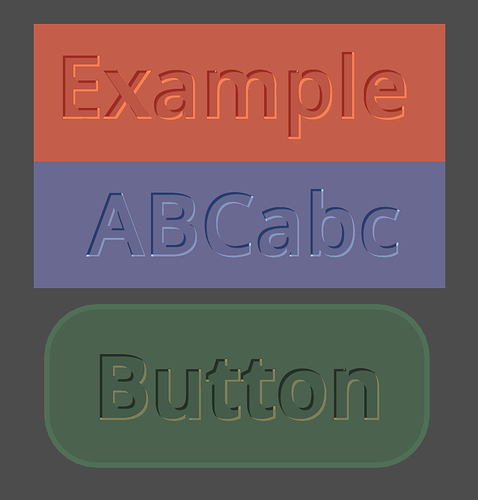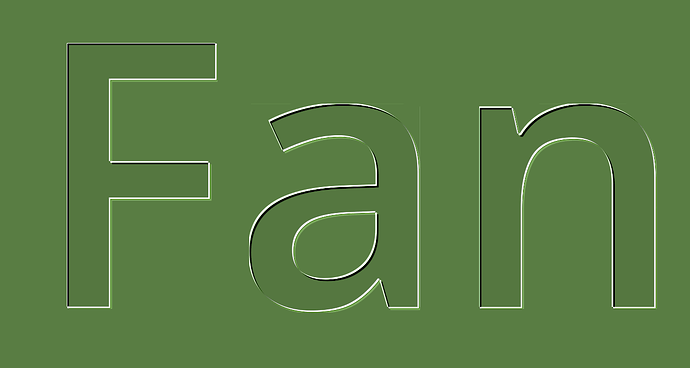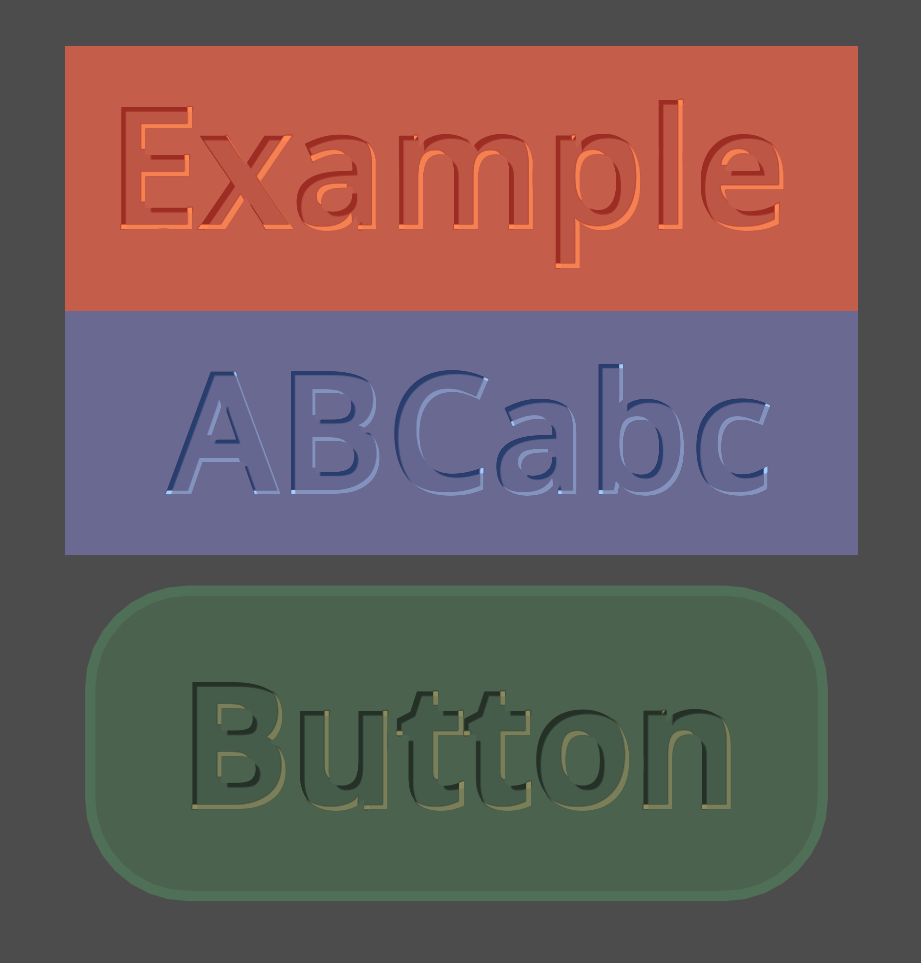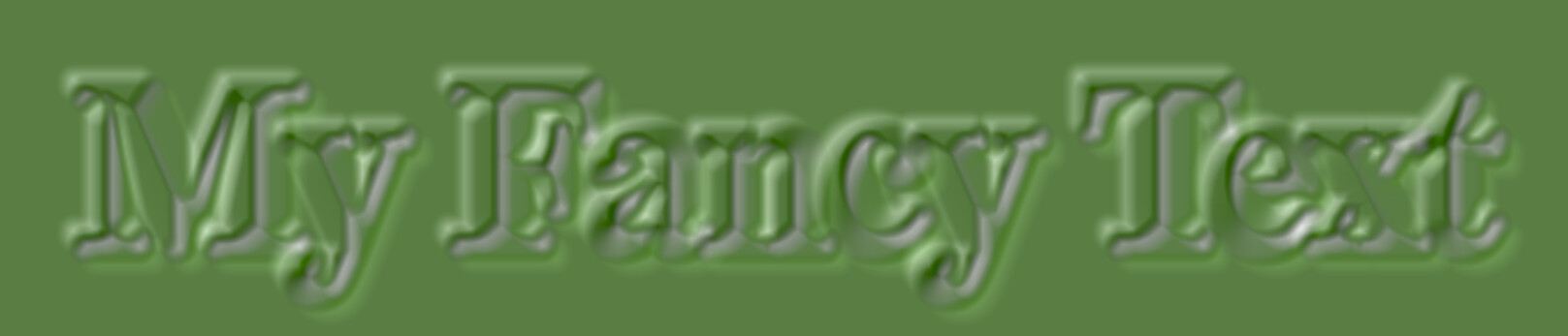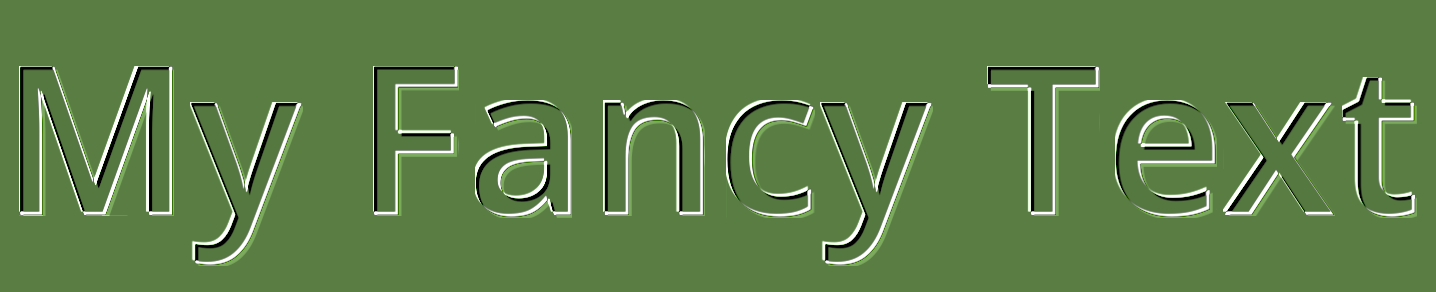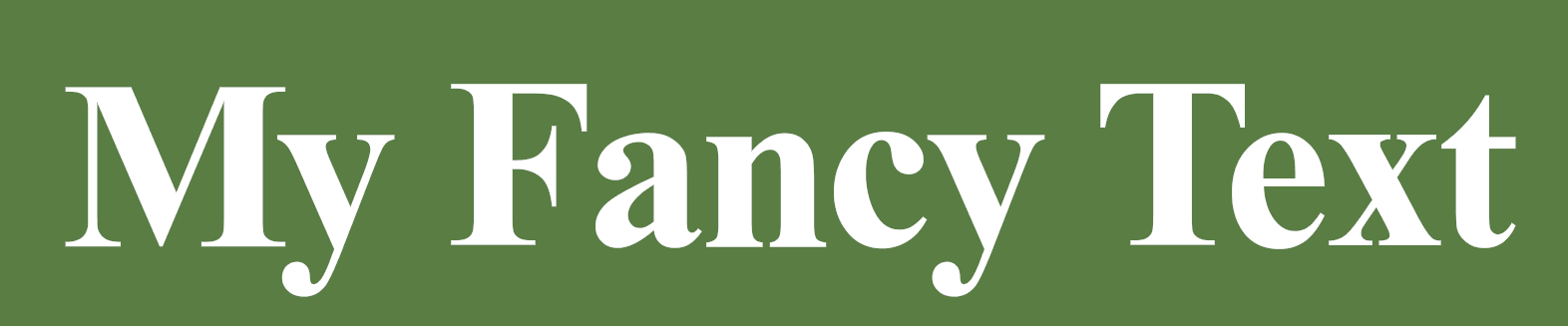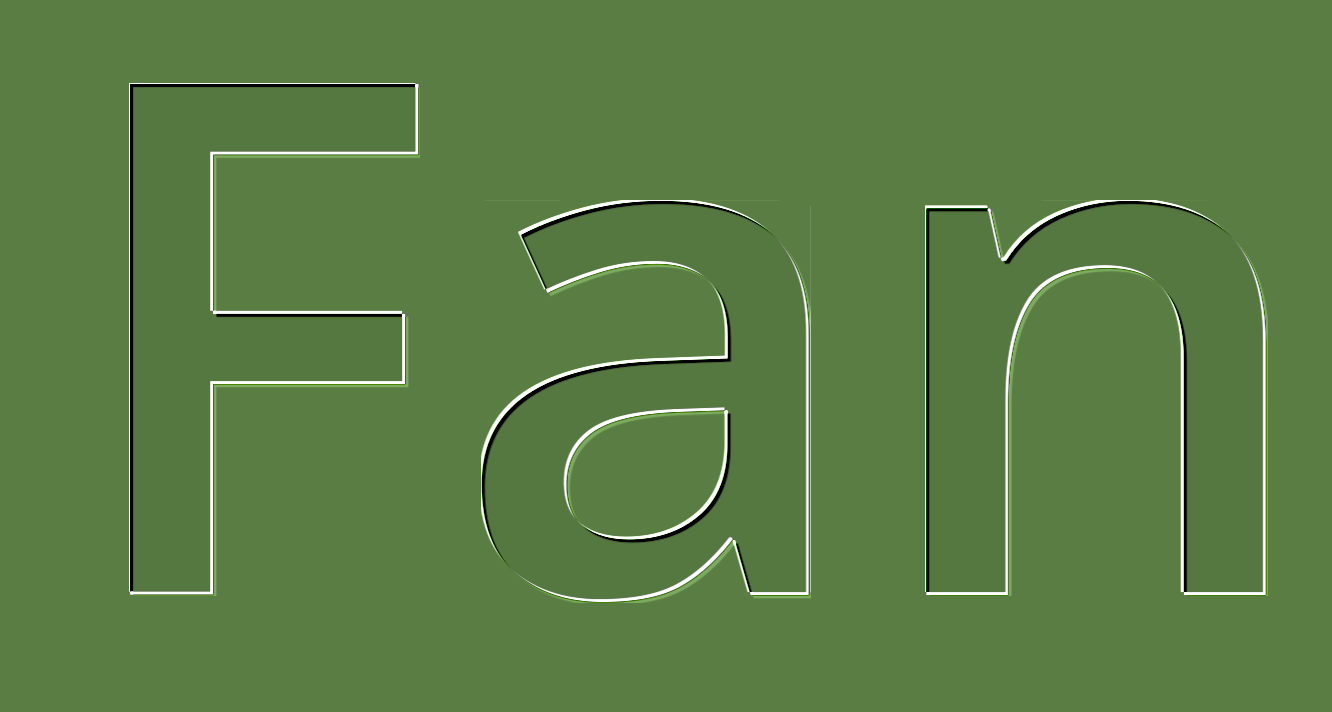
Hi i do not know if this is an incredibly stupid question but i would like to make a font looking like it is carved (the opposite of embossed). I do not mean that the font should have the same color as the background, the font can have whatever is the color of the theme or of the object. But it should have some kind of shadow at the top left and highlights at the bottom right that make look as it is carved (light coming from the top left corner).
I guess this should be doable if the font supports sdf (signace distance field) but i literally have no idea on how to practically do that:
- Even if somehow i can create a shader that does what i have in mind, the shader is applied to a node (a button, a tab, a label) not only to the text attached to it
- Also i really would like something that is “set once and forget” and i should not have to set for every different object/type of object
I am justing asking for some “directions” because i do not know where to start…
2D Text has an option to set a shader material in the CanvasItem Section.
You might be able to achieve this effect with the Outline and Shadow properties, as you can change them both to whatever you want, including color and alpha.
You can do it with a shader, even without sdf.
Sample the texture 3 times, once without offset, two times with + and - offset. Use the first sample as a mask to draw differences between the non-offset and offset samples in dark and light color. The amount of “depth” you can have while still looking acceptable will depend on the font but should be fine to create an illusion of a typical engraved look with most standard fonts.
Here’s a quick demo. Note that UV offset may be screen space dependent due to the way Godot dynamically handles font atlases, but since it’s reasonable to assume there will be no zooming of gui elements at runtime - it should be fine once the depth is adjusted for a specific view.
Not sure why you couldn’t get the results. The whole things is quite straightforward. Can you describe what exactly have you tried?
This is basically what i get:
The first image is without shader, the other 2 are at the same exact zoom with depth 0.001 and 0.005 i tried with a couple of fonts and i get the same result…
What happens if you use the default font?
Pretty much the same, i am simply unable to replicate your results. I literally copy pasted the shader from your answer and failed miserably to get the same result.
What happens when you zoom in?
This is what i get zooming in or out…
Can you post a minimal reproduction project?
This is the minimum project file that i was able to do. On my pc it behaves like the image i showed you
Try disabling 2d hdr in project settings, or clamp the final alpha to 0-1 range.
Thanks clamping the alpha works. You were really helpful. I spent some time trying to make it “zoom independent” I am not sure it is 100% zoom independent but it changes “less” so i am posting that change as a “thank you” @normalized